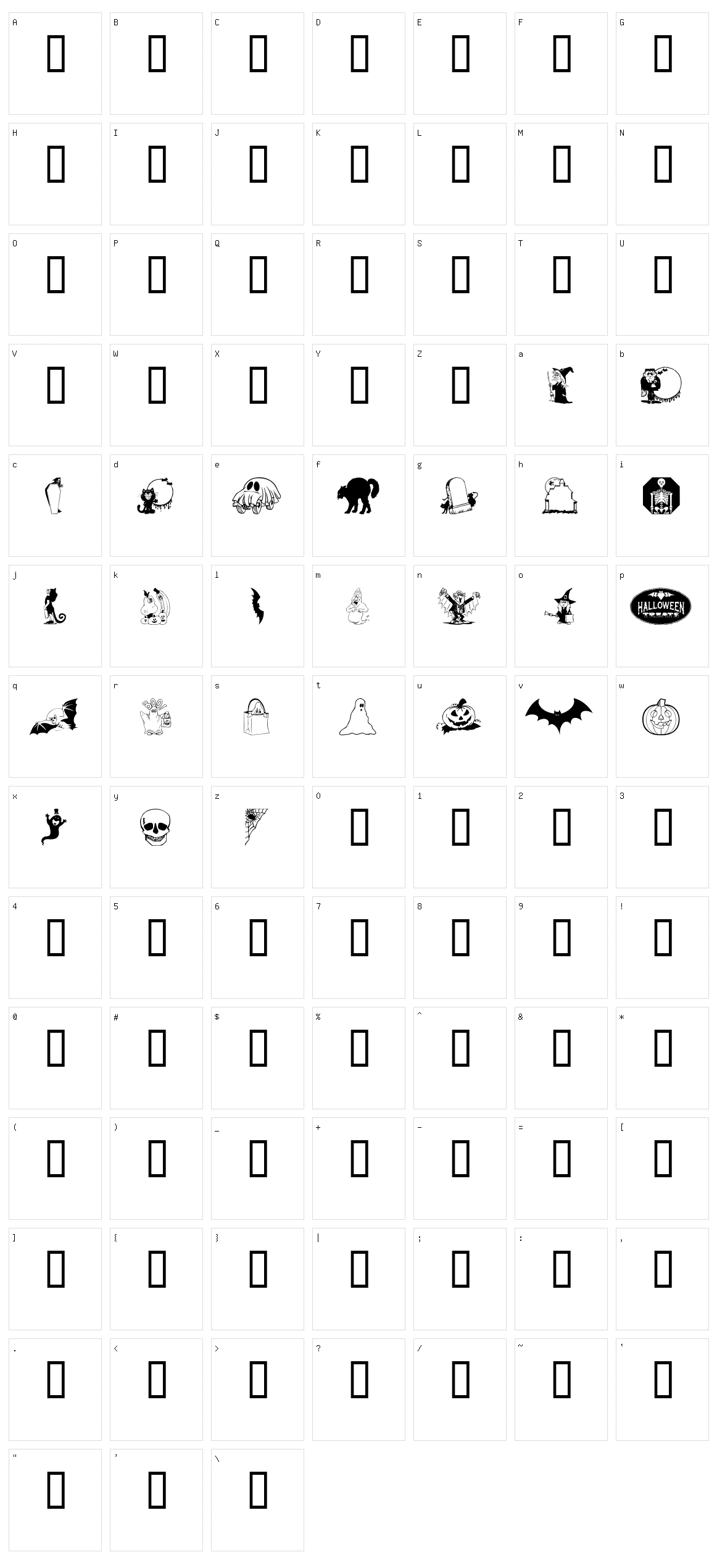
The free font Kiddy Halloween is carefully designed by House of Lime, showcasing a thoughtful balance of creativity and usability and falls under the Halloween font style. When you download the ZIP file, it contains only 42.12 KB of font files, making it lightweight and quick to download. Please review the license details below to understand permitted usage and distribution rights. If license information is not available, we recommend using this font for personal projects only or contacting the author directly for commercial usage permissions.